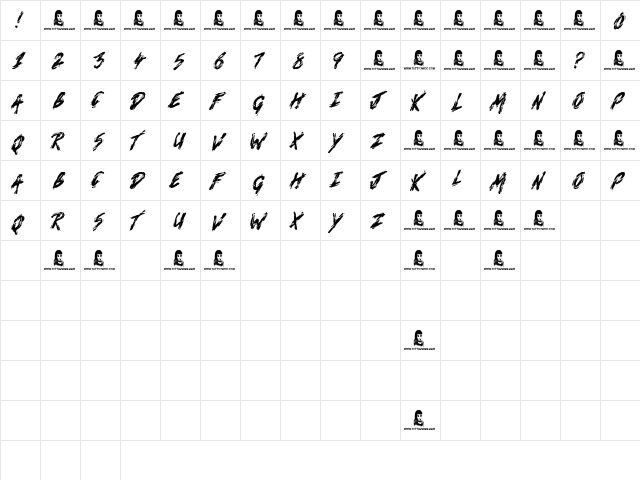
Death Valley Regular
Design Context for Death Valley Typeface
Death Valley carries an unsettling edge — its distorted letterforms are built to unsettle, perfectly suited to horror, Halloween, and dark creative work.
Ideal for Halloween projects, horror film titles, haunted house signage, and dark editorial design.
Font Pairing: Pair with a clean neutral sans-serif for body copy to let Death Valley's character lead without overwhelming the composition.
Pro Tip: Death Valley works best as a headline or focal element. Pair it against plain, neutral body text to amplify the contrast.